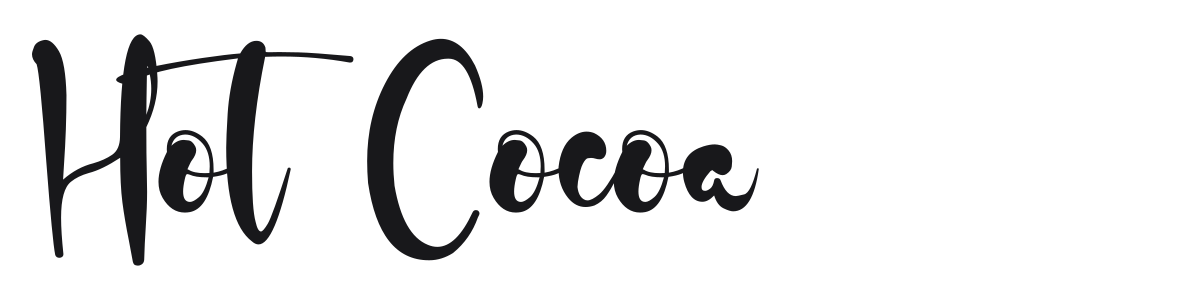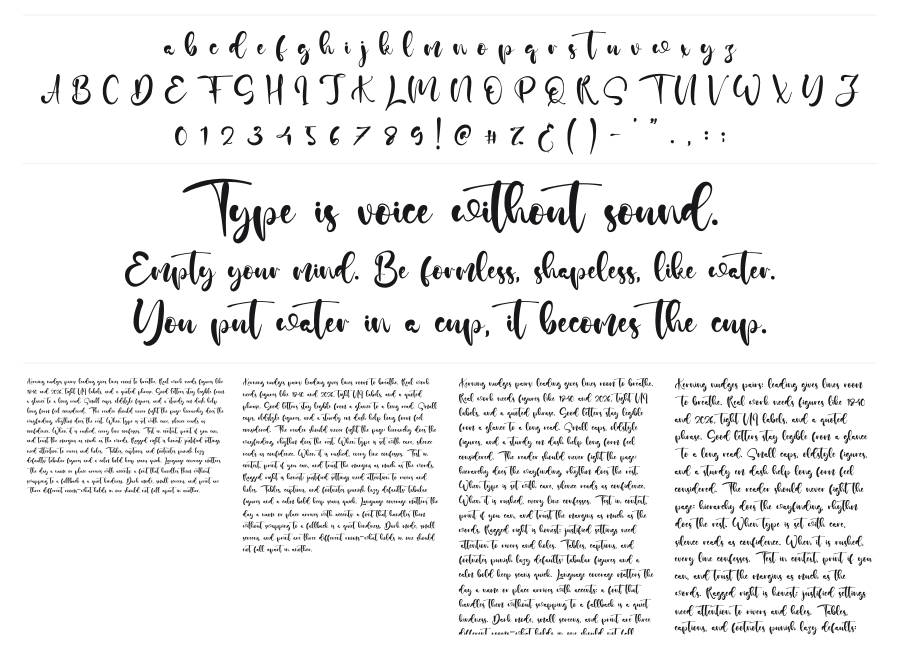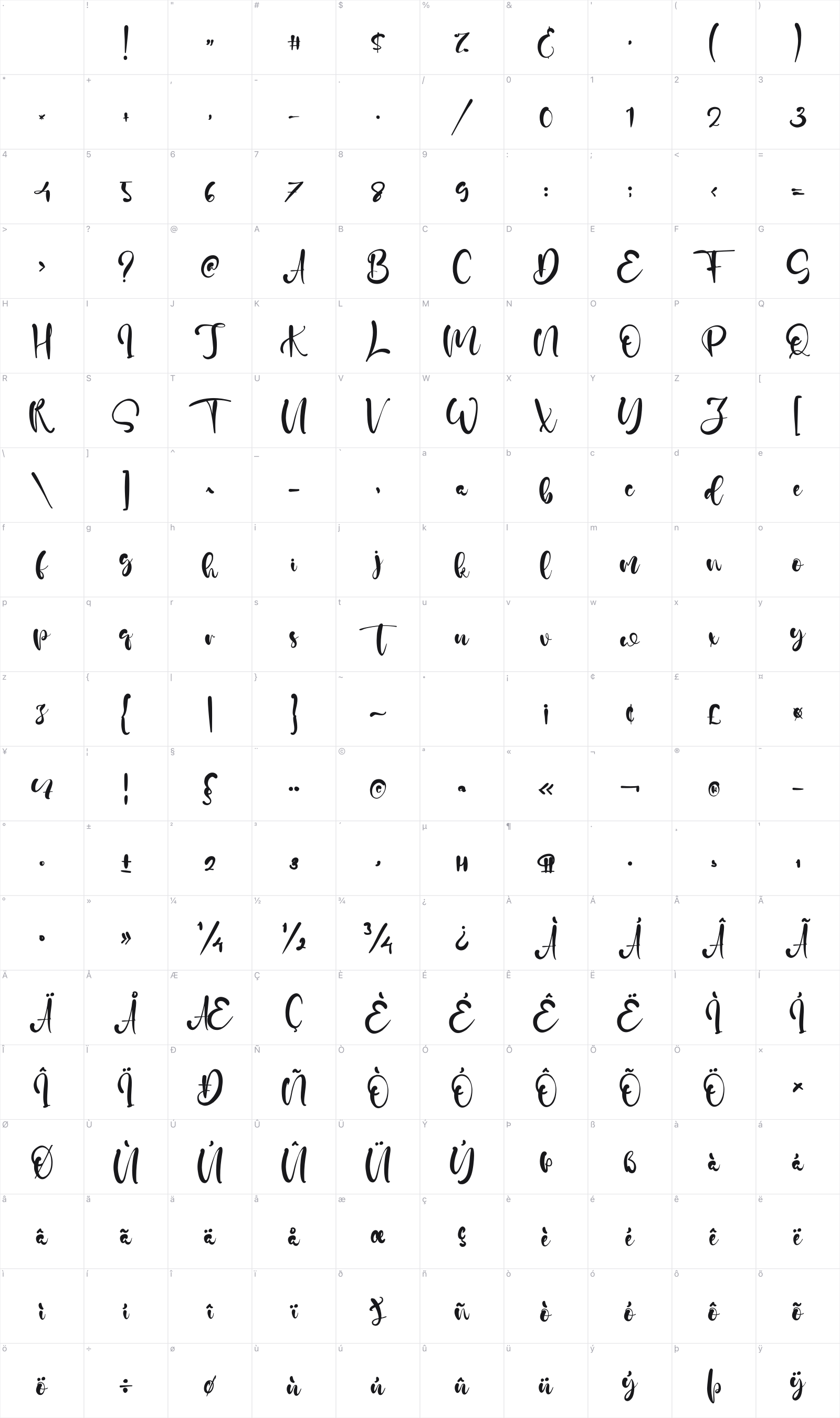
Hot Cocoa
Hot Cocoa is a bold, expressive brush script with lively stroke contrast and bouncy, connected characters. The thick-to-thin transitions give it a hand-lettered warmth that works naturally across packaging, logos, and editorial headlines. It carries the kind of casual charm that feels both crafted and spontaneous.